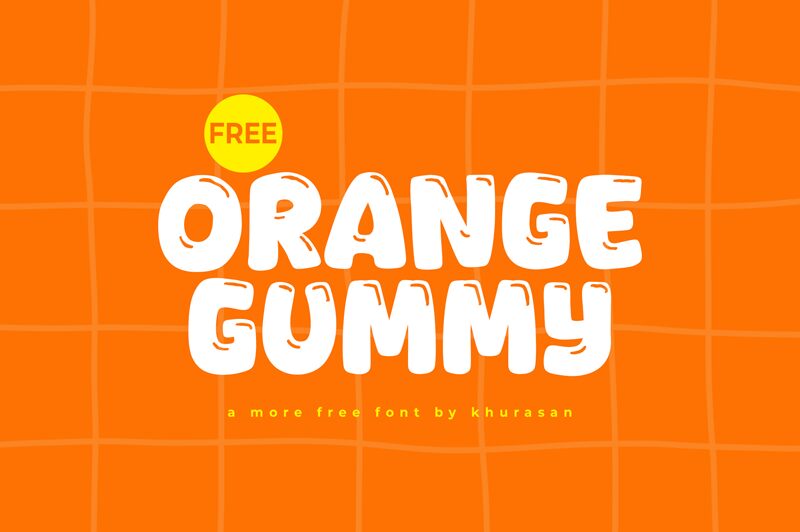
Orange Gummy font is a playful cartoon font by Khurasan with a bubbly, thick appearance. The modern display font carries a playful essence showcased in its youthful feel and friendly nature. It’s bold, noticeable, and engaging at first sight; just the right pick for grabbing attention from both adults and children all over the world.
Make your food packaging products irresistible with Orange Gummy or decorate t-shirts, stickers, invitations, cards, journals covers, game applications’ interfaces, toys branding materials. Other ideas can be colorful banners for birthday parties or printouts to mark other fun celebrations such as carnivals and costume parties.